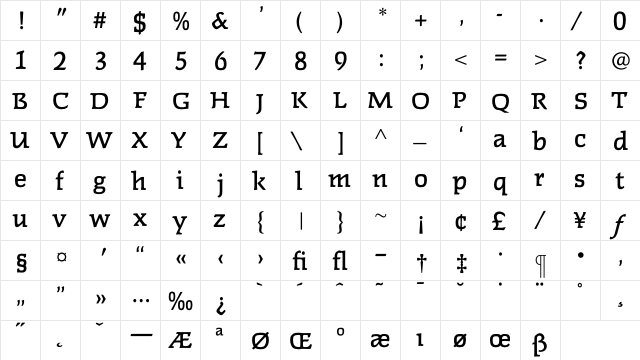
FaustMedium Regular
Design Context for FaustMedium Typeface
FaustMedium is a composed and adaptable typeface that performs quietly and consistently across a wide range of design contexts.